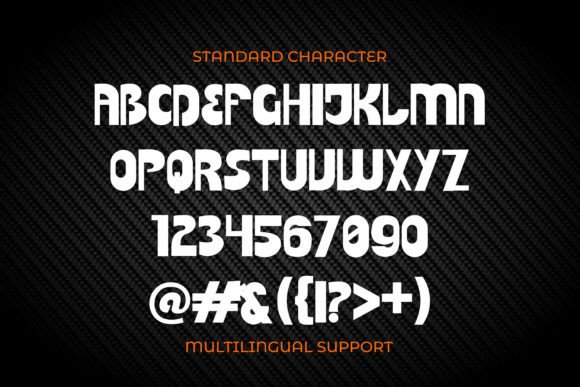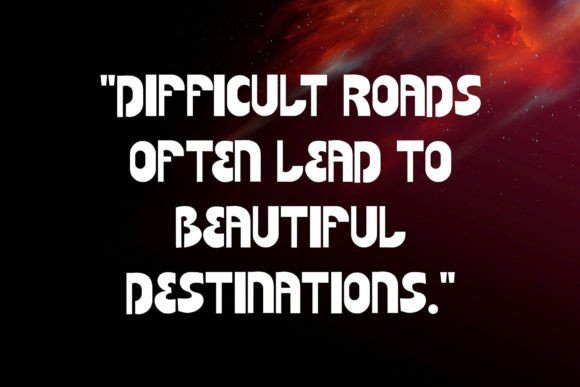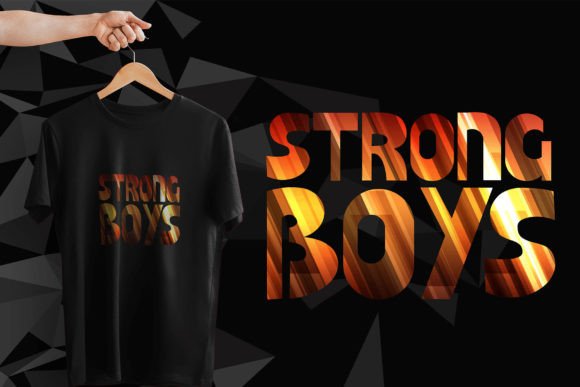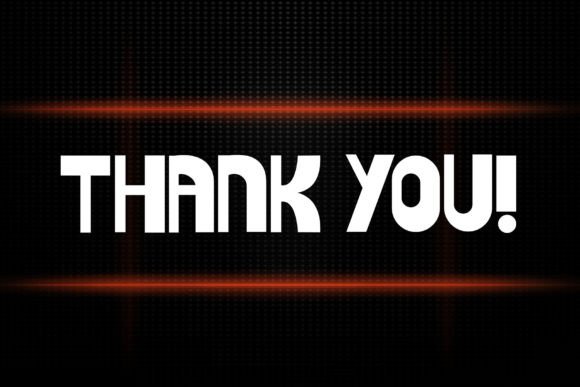
Introducing Hard Lines Font: Elevate Your Design Projects with a Fun and Versatile Display Font
Are you tired of using the same old fonts in your design projects? Look no further! Hard Lines Font is a fun and versatile display font that’s perfect for adding a touch of personality to your branding, headings, wedding designs, invitations, signatures, logotypes, wall art illustrations, apparel, labels, and more. In this article, we’ll take a closer look at the features and benefits of Hard Lines Font and explore how it can elevate your design projects to their highest level.
What is Hard Lines Font?
Hard Lines Font is a display font designed to make a statement. Its unique and playful style is characterized by bold lines and a modern aesthetic that’s sure to grab attention. The font is highly versatile and can be used in a variety of design projects, from digital designs to print materials.
Key Features of Hard Lines Font
- Fun and playful style: Hard Lines Font has a unique and playful style that’s perfect for adding a touch of personality to your designs.
- Highly versatile: The font can be used in a variety of design projects, from digital designs to print materials.
- Bold and modern aesthetic: The font’s bold lines and modern aesthetic make it perfect for headings, titles, and other design elements that need to stand out.
- Easily readable: Despite its bold style, Hard Lines Font is easily readable, making it perfect for use in body text and other applications where legibility is important.
Uses for Hard Lines Font
Hard Lines Font is a highly versatile font that can be used in a wide range of design projects, including:
- Branding: Use Hard Lines Font to create bold and eye-catching logos, business cards, and other branding materials.
- Wedding designs: Add a touch of personality to your wedding designs, including invitations, programs, and other stationery.
- Invitations: Use Hard Lines Font to create fun and playful invitations for parties, events, and other celebrations.
- Signatures: Add a personal touch to your email signatures, social media profiles, and other digital communications.
- Logotypes: Use Hard Lines Font to create custom logotypes that reflect your brand’s personality and style.
- Wall art illustrations: Add a touch of personality to your wall art illustrations, including posters, prints, and other decorative items.
- Apparel: Use Hard Lines Font to create bold and eye-catching designs for t-shirts, hoodies, and other apparel.
- Labels: Add a touch of personality to your labels, including product labels, address labels, and other types of labels.
Why Choose Hard Lines Font?
There are many reasons why Hard Lines Font is a great choice for designers and crafters, including:
- Unique and playful style: Hard Lines Font has a unique and playful style that’s sure to grab attention and add a touch of personality to your designs.
- High-quality design: The font is designed to high standards, with clean lines and a modern aesthetic that will elevate your designs.
- Easily readable: Despite its bold style, Hard Lines Font is easily readable, making it perfect for use in body text and other applications where legibility is important.
- Versatile: The font can be used in a wide range of design projects, from digital designs to print materials.
| Font Name | Hard Lines Font |
| Author | Cikareotype |
In conclusion, Hard Lines Font is a fun and versatile display font that’s perfect for adding a touch of personality to your design projects. With its unique and playful style, highly versatile design, and easily readable text, Hard Lines Font is a great choice for designers and crafters. Whether you’re working on branding, wedding designs, invitations, or other projects, Hard Lines Font is sure to elevate your designs to their highest level. So why wait? Add Hard Lines Font to your collection today and start creating stunning designs that stand out from the crowd!